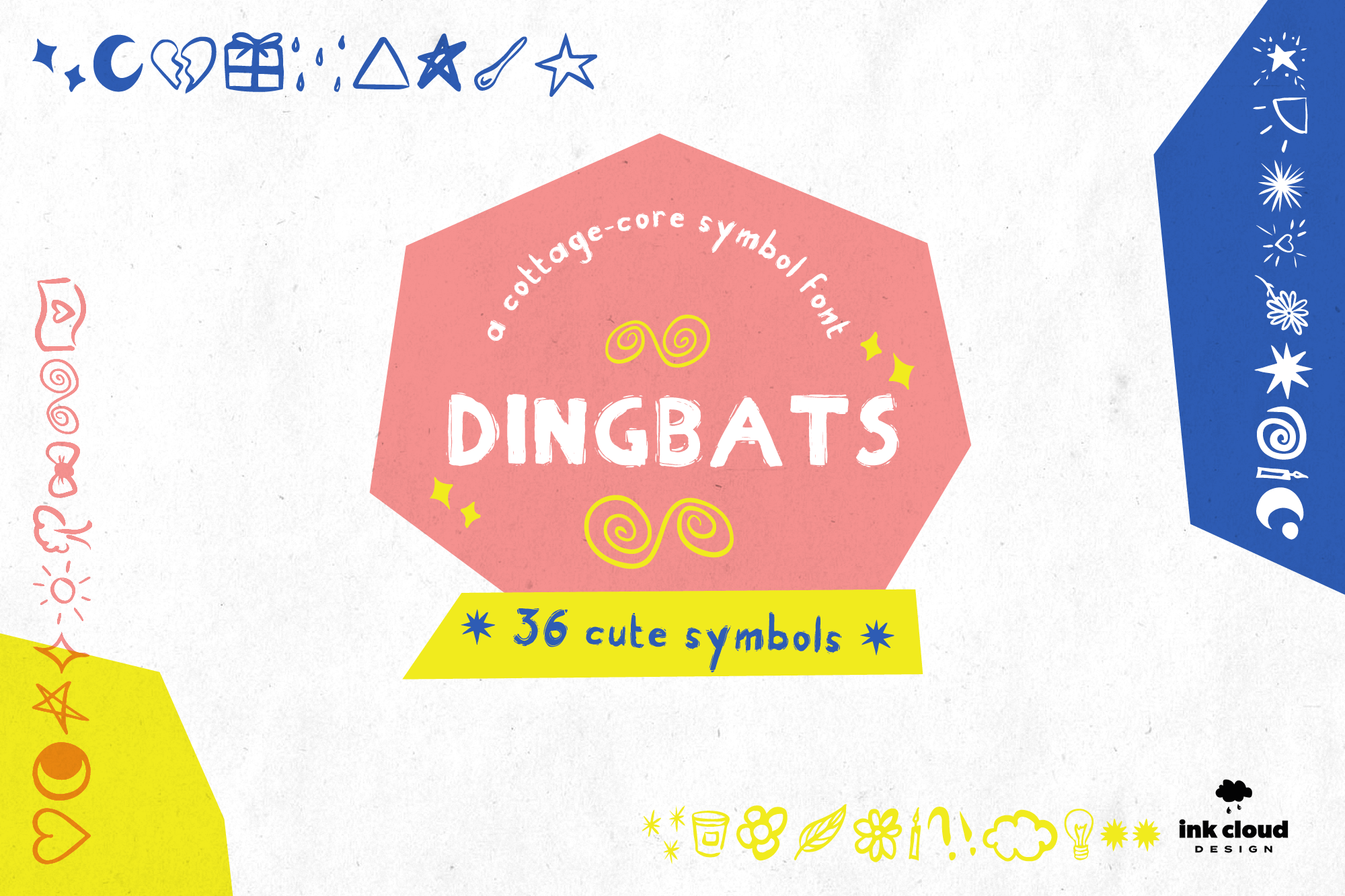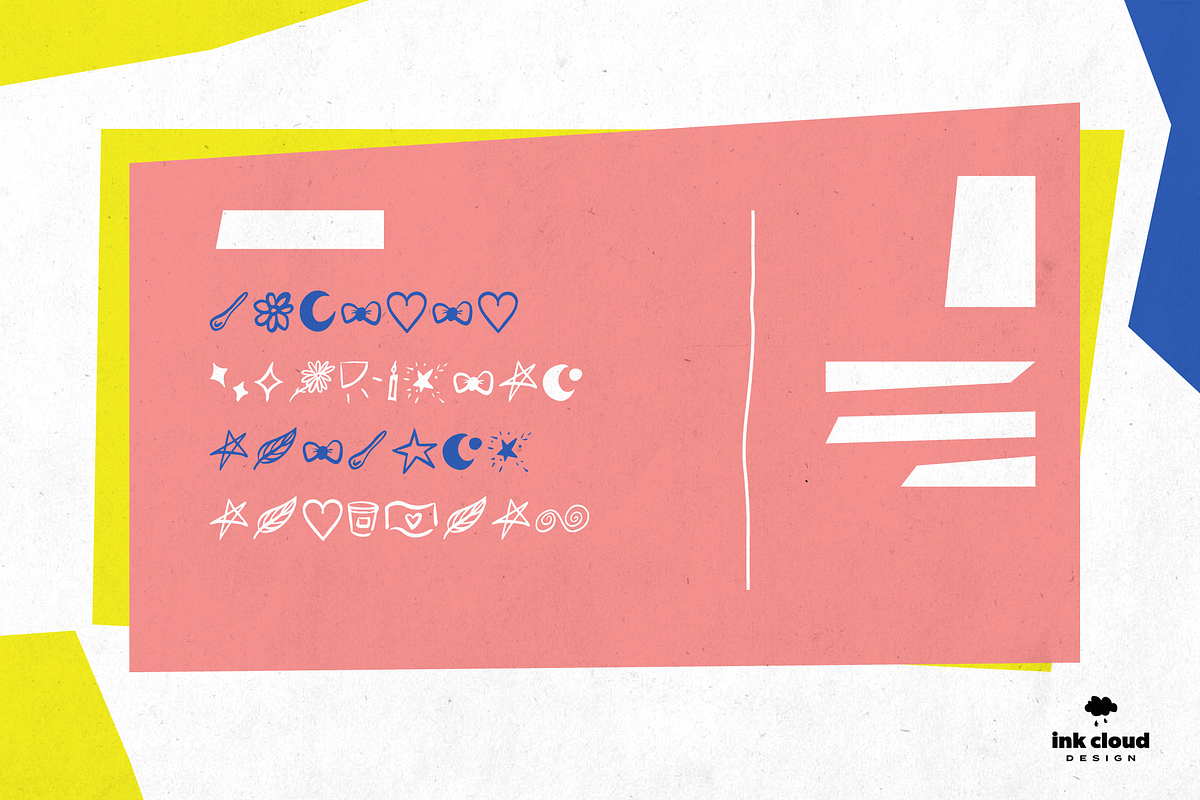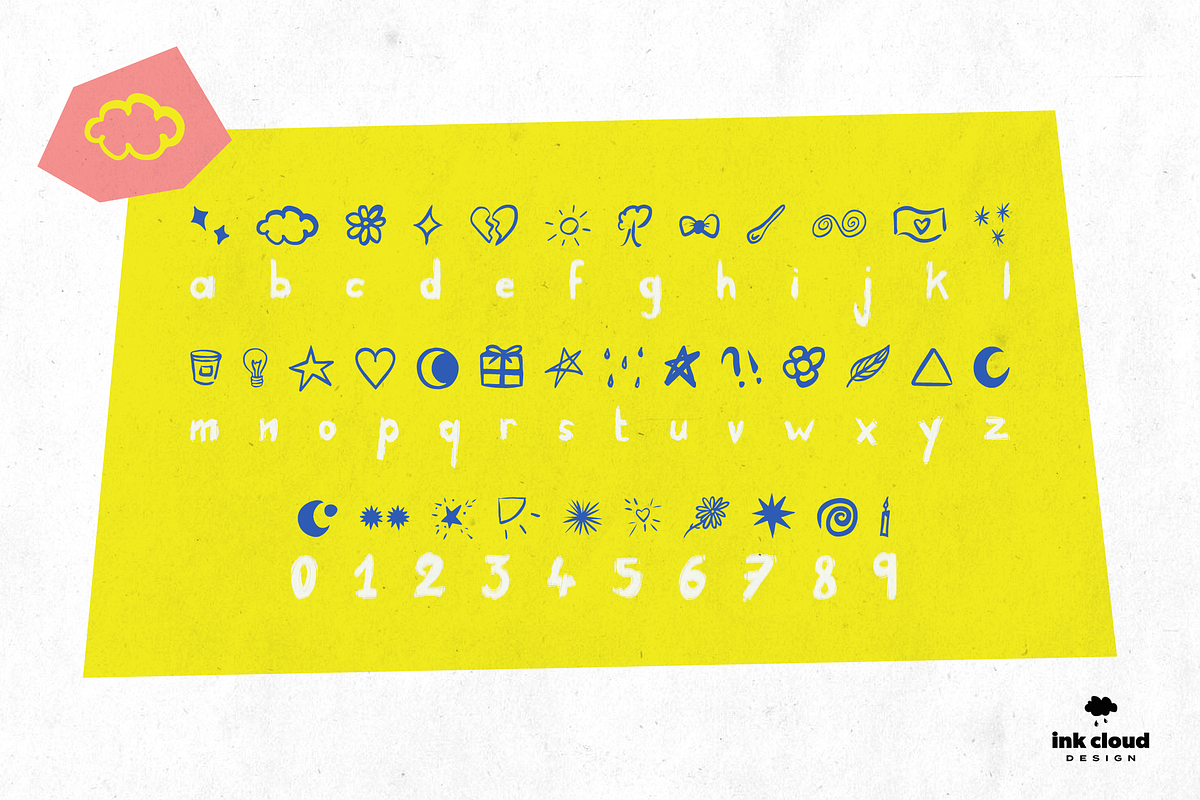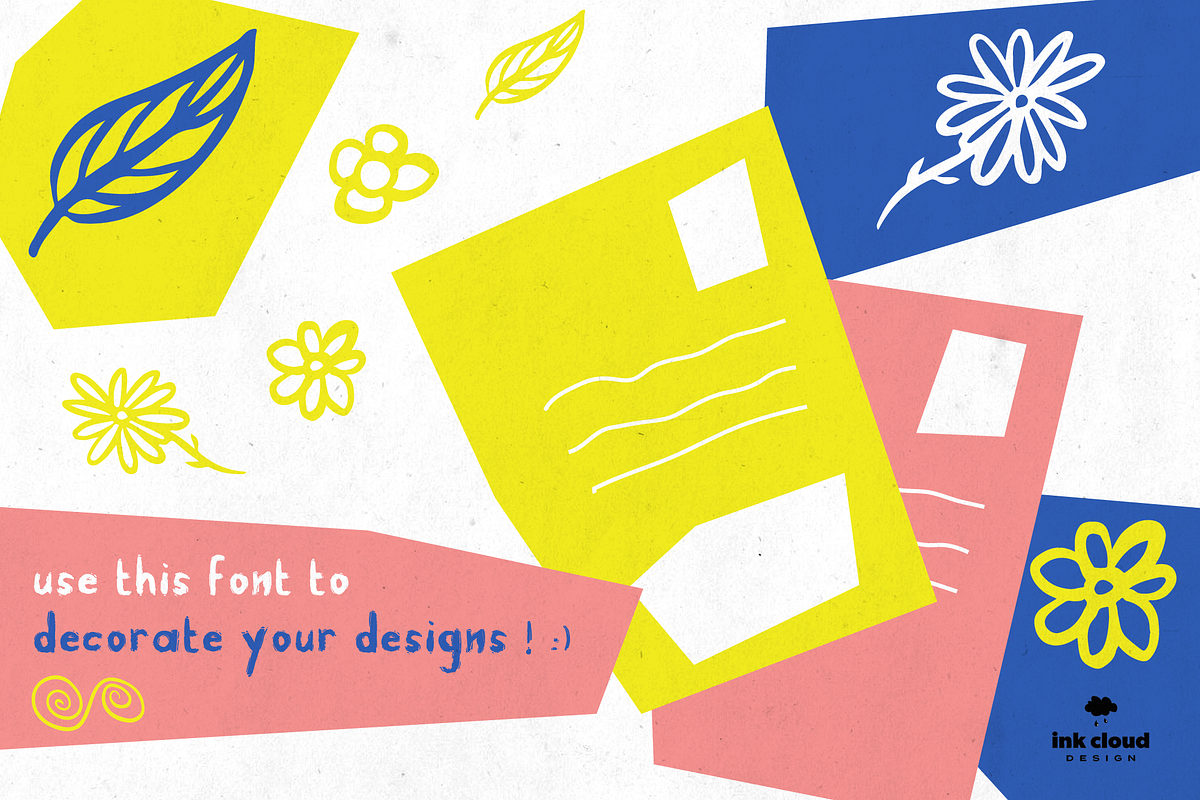
Dingbats Handwritten Symbol Typeface
"Dingbats" is a hand-drawn symbol font. This typeface will add a cottage-core vibe to your designs ! I hope you like it ! :)
For example, you can use this font for:
– typography designs
– text on illustrations
– print text on various objects such as cards, mugs, t-shirts, notebooks, wallpaper, wedding invitations, birthday cards, etc
& more !